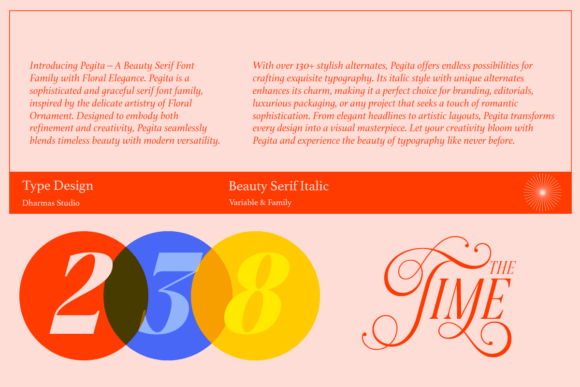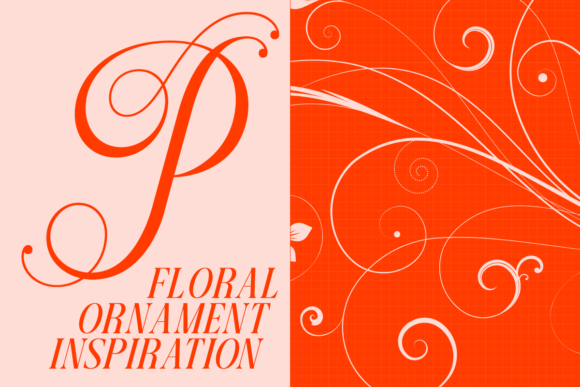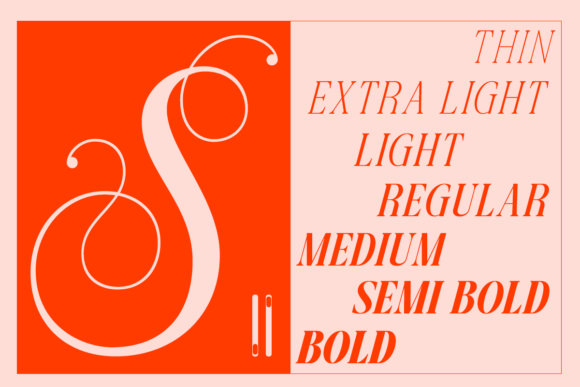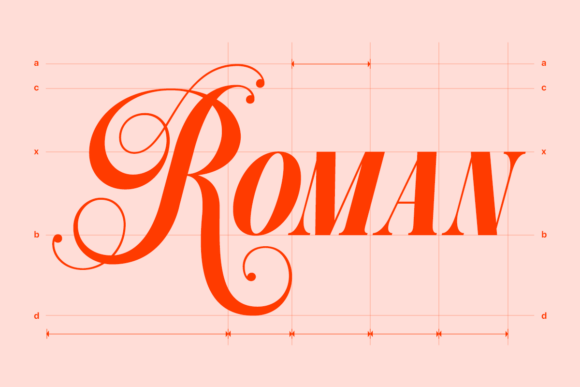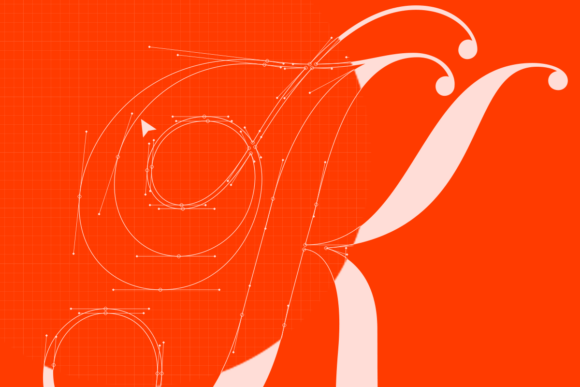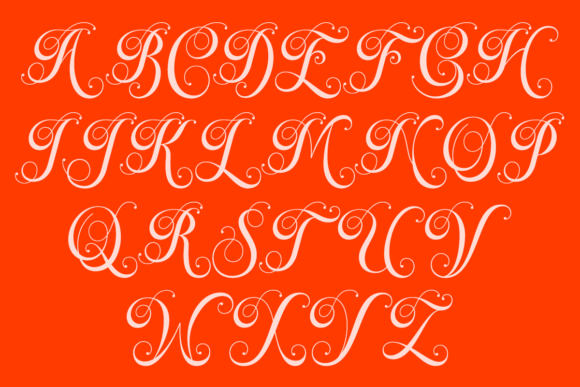
Introduction to Dh Pegita Font
DH Pegita is a refined serif display font inspired by the delicate beauty of floral ornaments.
Designed for both sophistication and modern charm, this typeface blends classic aesthetics with contemporary versatility, making it perfect for high-end design projects Whether for branding, editorial layouts, or event invitations, its elegant curves and fine details ensure a stunning visual impact.
Key Features of Dh Pegita Font